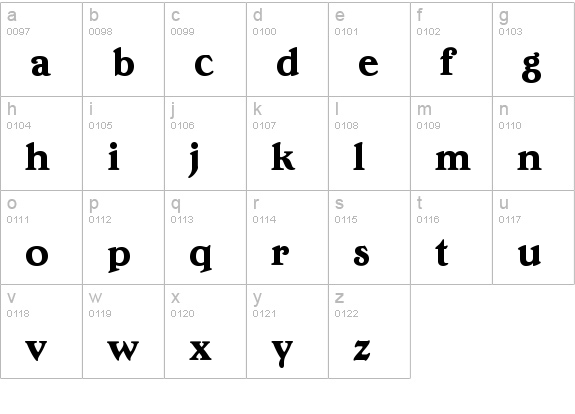
EdwardianEF-ExtraBold is an extra-heavy, attention-grabbing variant in the EdwardianEF typeface family \xE2\x80\x94 well suited to high-impact headlines, posters, and bold branding.
Introducing EdwardianEF-ExtraBold, a font that exudes elegance, sophistication, and timeless charm. Inspired by the refined aesthetics of the Edwardian era, this typeface is perfect for capturing attention and making a bold statement. With its extra-bold weight, EdwardianEF-ExtraBold commands the attention of any viewer, making it an ideal choice for headlines, titles, and logos. Its clean, well-defined letterforms maintain legibility even at smaller sizes, ensuring that your message is conveyed with clarity and impact. The EdwardianEF-ExtraBold font is meticulously designed, paying homage to the ornate and intricate details that defined the Edwardian period. Every curve and stroke has been crafted with precision and care, resulting in a font that is both visually stunning and highly versatile. One of the most remarkable aspects of EdwardianEF-ExtraBold is that it is available to download for free at FontsMarket.com. This means that you can bring a touch of Edwardian elegance to your designs without any cost. Whether you're a graphic designer, a creative professional, or simply someone with a penchant for beautiful typography, EdwardianEF-ExtraBold is a valuable addition to your font library. Embrace the opulence and refinement of the Edwardian era with EdwardianEF-ExtraBold. Make a memorable impression and elevate your designs to new heights of sophistication. Download this remarkable font for free at FontsMarket.com and unleash your creativity today.